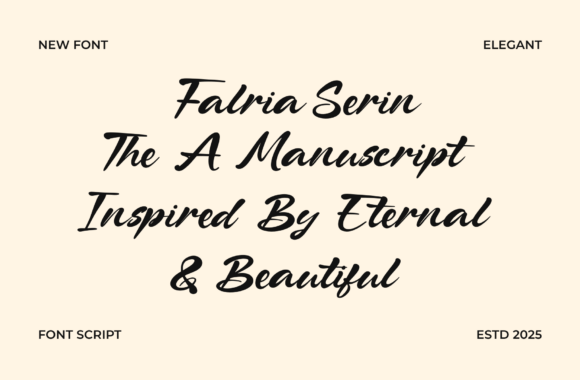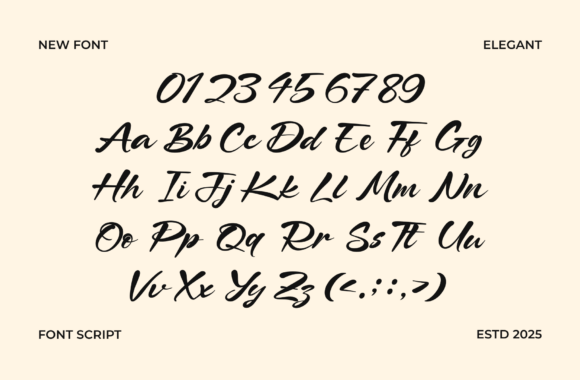
Falria Serin Font: Timeless Elegance in Every Stroke
Discover the perfect harmony of sophistication and artistic flair with Falria Serin, an elegant script beauty font designed to elevate your creative vision. This typeface combines the graceful flow of traditional calligraphy with a modern, bold aesthetic, making it an essential tool for designers seeking a “Beauty Elegant” touch.
Introduction to Falria Serin
Created by Maikohatta Std, Falria Serin features smooth, expressive curves and a confident weight that ensures your message is both seen and felt. This elegant script font is specifically crafted for projects that require a high-end, polished look, making it an ideal choice for luxury branding, editorial headlines, and sophisticated social media layouts.
Elegant Script Beauty
Falria Serin is designed to bring a touch of elegance and sophistication to your designs. Its bold yet graceful strokes provide excellent legibility while maintaining a delicate, handcrafted feel. This font is perfect for designers who want to add a level of refinement and luxury to their work.
Key Features of Falria Serin
• Elegant Script Beauty: Specifically crafted for projects that require a high-end, polished look.
• Versatile Application: Ideal for luxury branding, editorial headlines, and sophisticated social media layouts.
• Bold Yet Graceful: Features thick, fluid strokes that provide excellent legibility while maintaining a delicate, handcrafted feel.
• Contemporary Classic: Perfectly suited for wedding invitations, premium packaging, and personal branding that demands a timeless appeal.
Applications of Falria Serin
Falria Serin is a versatile font that can be used in a variety of applications, including:
• Luxury Branding: Create a lasting impression with Falria Serin’s elegant and sophisticated design, perfect for high-end brands.
• Editorial Headlines: Add a touch of glamour and sophistication to your editorial content with Falria Serin’s bold and expressive strokes.
• Sophisticated Social Media Layouts: Elevate your social media presence with Falria Serin’s elegant design, perfect for creating engaging and refined content.
• Wedding Invitations: Make your wedding invitations truly special with Falria Serin’s beautiful and elegant design.
• Premium Packaging: Add a touch of luxury to your packaging with Falria Serin’s sophisticated and refined design.
• Personal Branding: Create a lasting impression with Falria Serin’s elegant and sophisticated design, perfect for personal branding.
Why Choose Falria Serin?
Falria Serin offers a unique combination of elegance, sophistication, and versatility, making it an essential tool for designers seeking a “Beauty Elegant” touch. With its smooth, expressive curves and confident weight, Falria Serin ensures that your message is both seen and felt.
In conclusion, Falria Serin is a timeless and elegant script beauty font that is perfect for designers seeking to add a touch of sophistication and artistic flair to their work. With its versatile application, bold yet graceful strokes, and contemporary classic design, Falria Serin is an essential tool for any designer looking to elevate their creative vision.